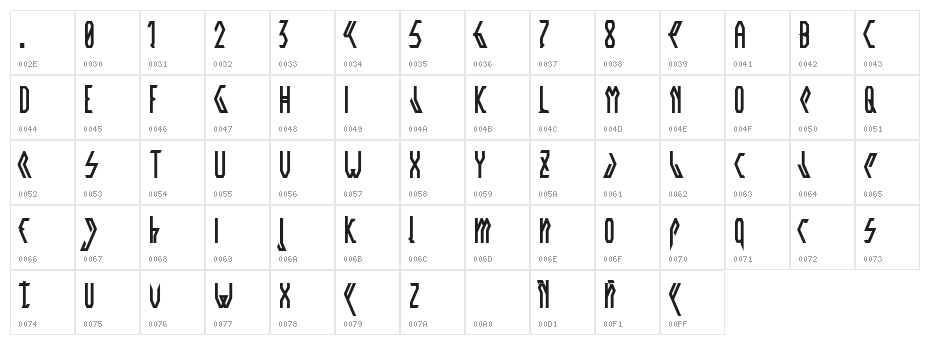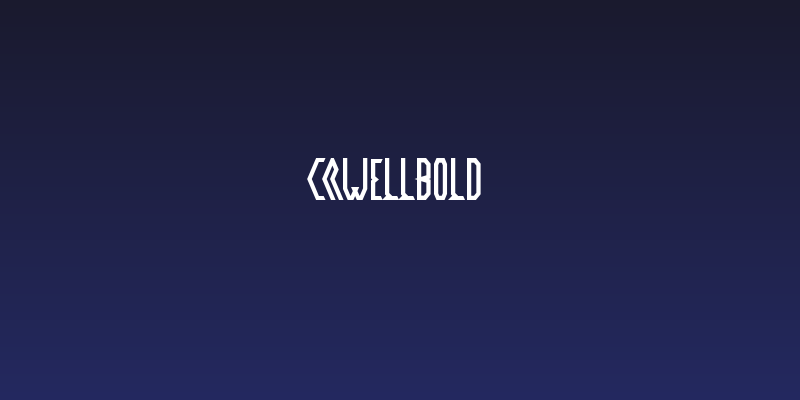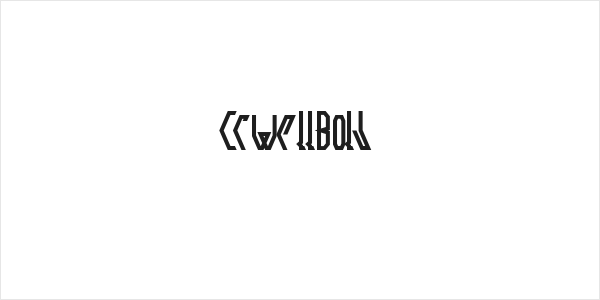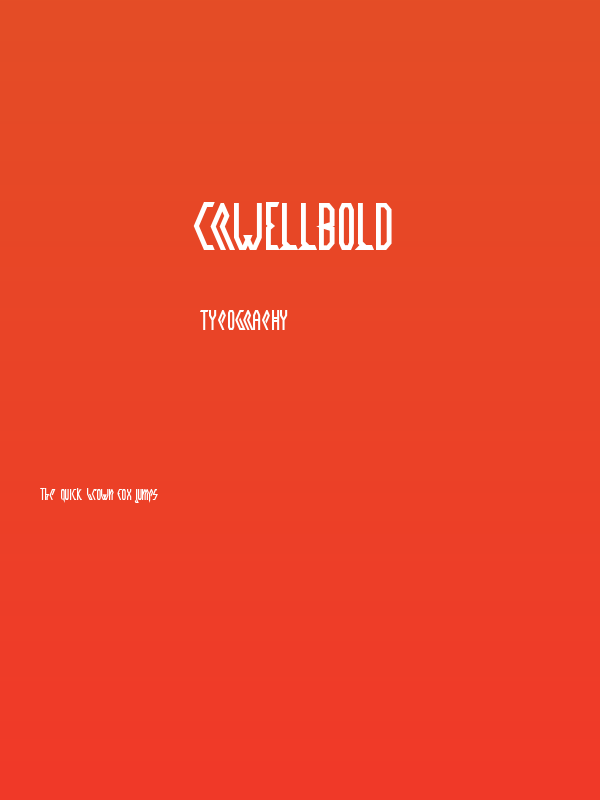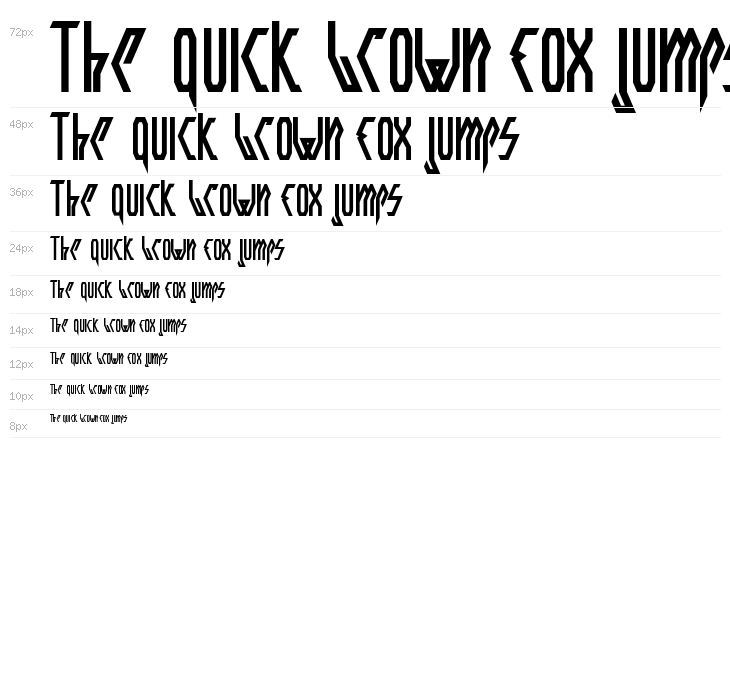
CrwellBold Font
CrwellBold Description
This font features a bold and geometric design with sharp angles and a futuristic aesthetic. The characters are constructed with a consistent thickness, creating a uniform appearance across both uppercase and lowercase letters. The numerals and special characters maintain the same angular style, enhancing the font's cohesive look. Its unique structure makes it stand out, ideal for projects that require a modern and edgy feel. The font's design is both striking and readable, making it versatile for various creative applications.
| Proposed Projects | Ideal for branding, posters, album covers, and video game graphics. |